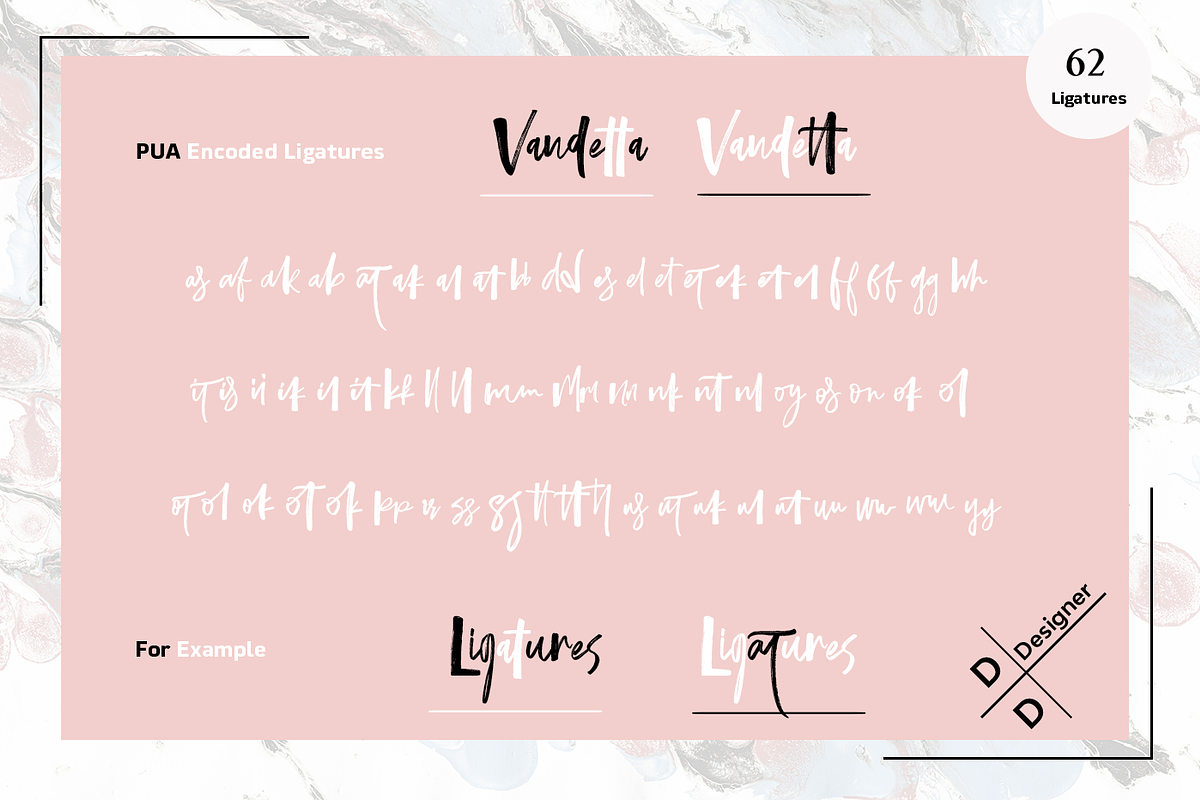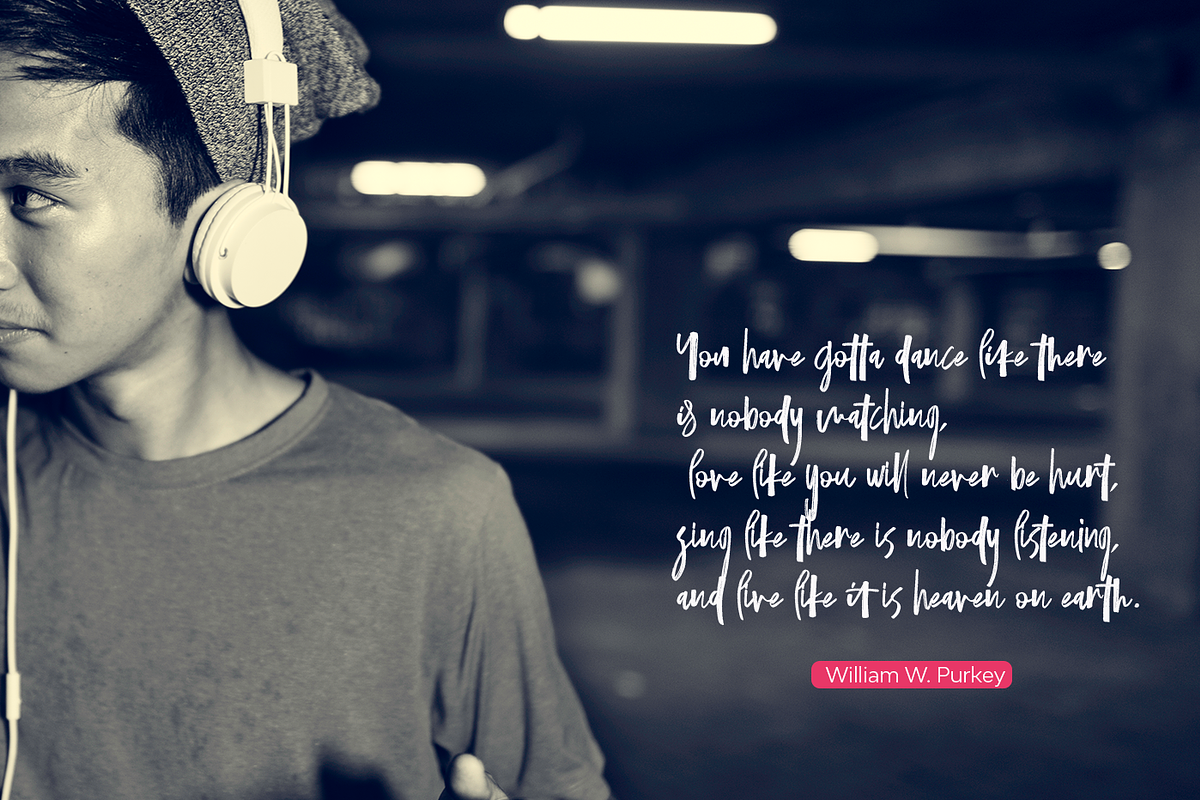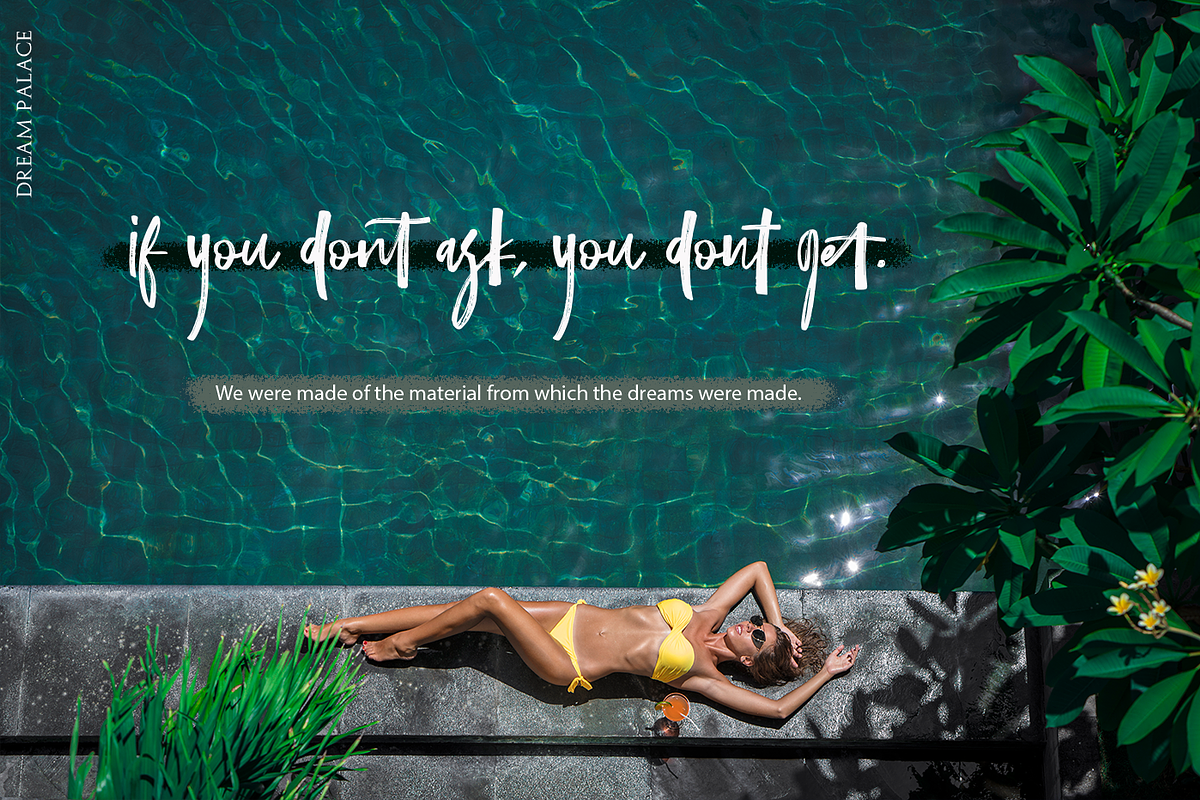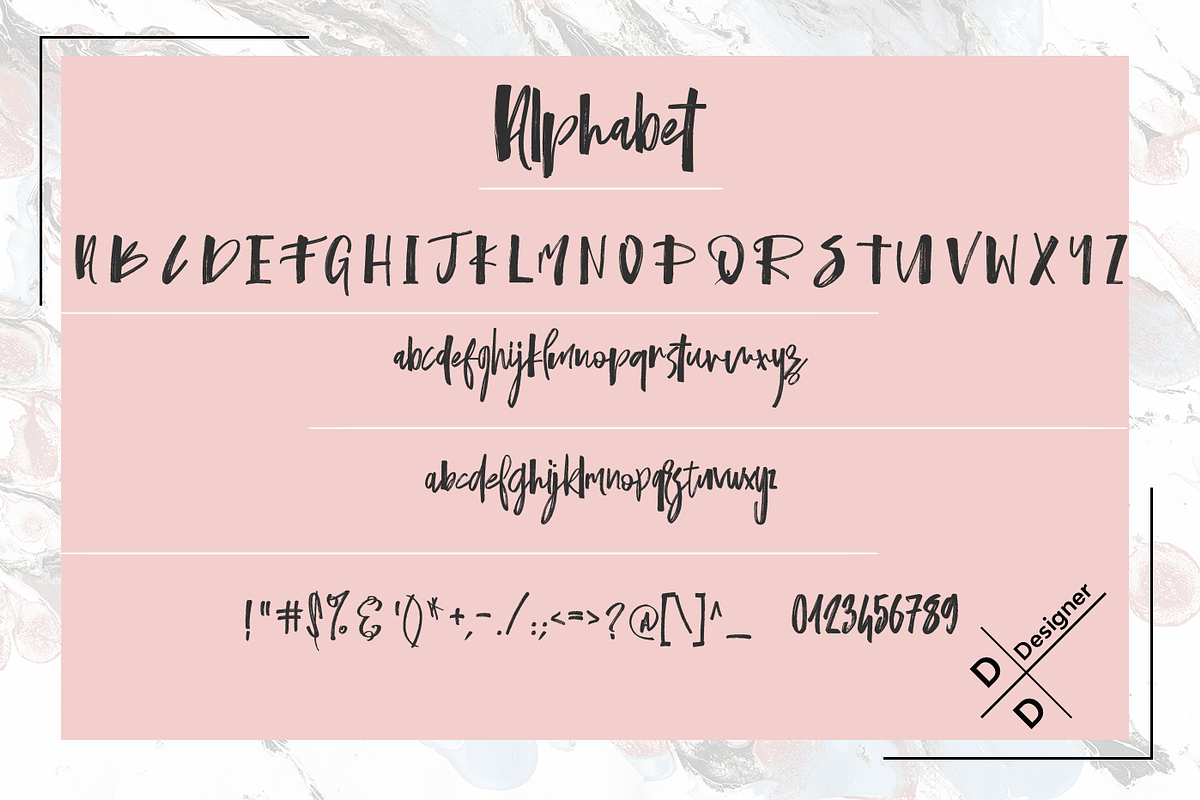
Gatasuunk
'' Gatsuunk '' Brush Font has almost an unique design that posseses elegancy and charm. Fluidity of ink and hardness of brush created the unique characteristics of the font. You can see the harmony of the curls among the letters. With Gatsuunk , you can make your projects, brands, presentation of your collections, magazines, logos, packagings and websites be eye-catching with pleasure.
Uppercase Lowercase Numbers and Symbols Alternate Characters 62 Ligatures Pua Encoded OTF and TTF